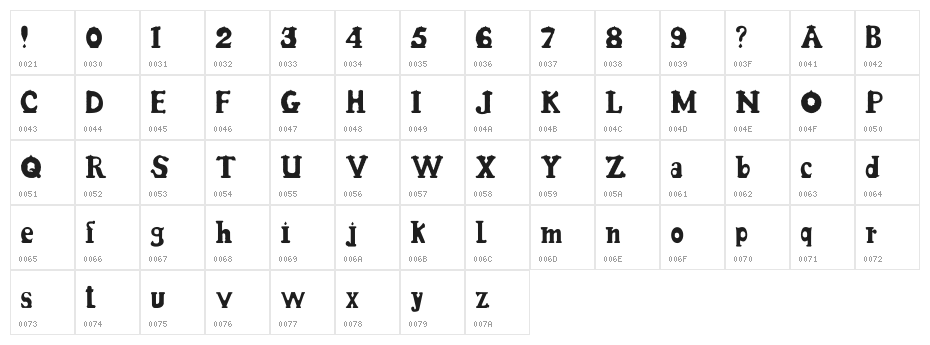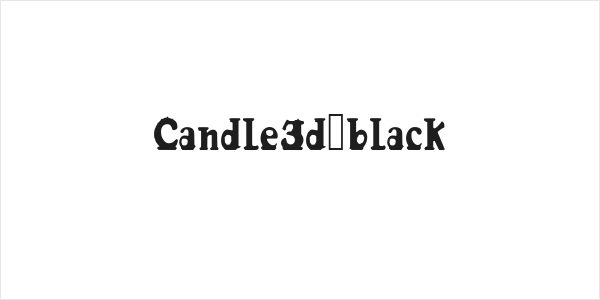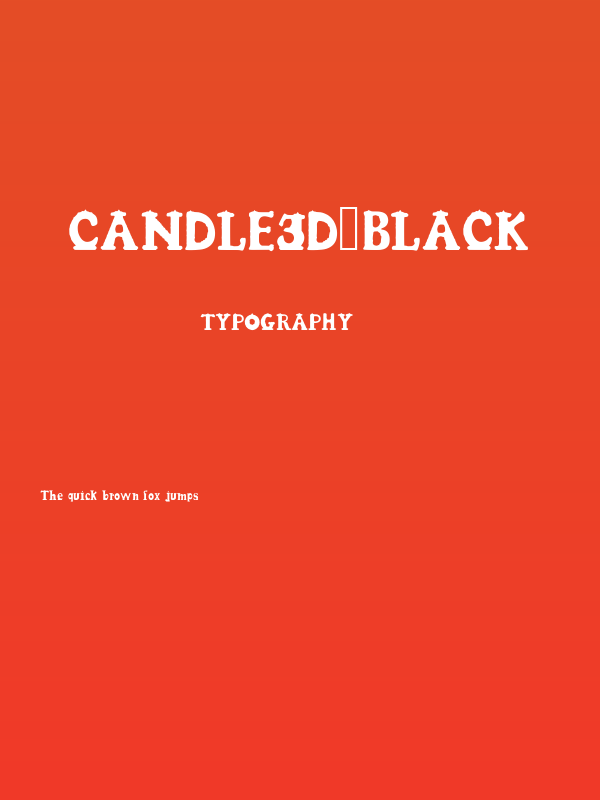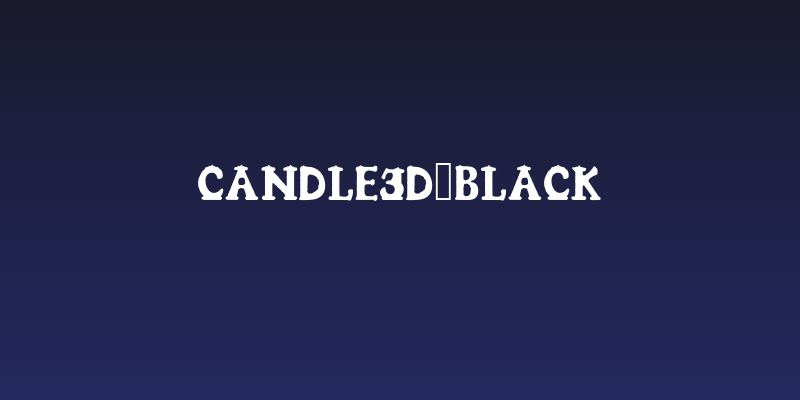
Candle3d-black Font
Candle3d-black Description
This font features a bold and dramatic style with thick, heavy strokes that give it a strong presence. The characters have a slightly distressed appearance, adding a vintage or rustic feel. The uppercase and lowercase letters maintain a consistent weight, while the numbers and special characters follow the same bold design. The font's unique style makes it suitable for eye-catching designs where a strong visual impact is desired. Its boldness and character make it ideal for projects that require a touch of nostalgia or a handcrafted look.
| Proposed Projects | Ideal for posters, logos, branding, and packaging that require a strong, vintage aesthetic. |